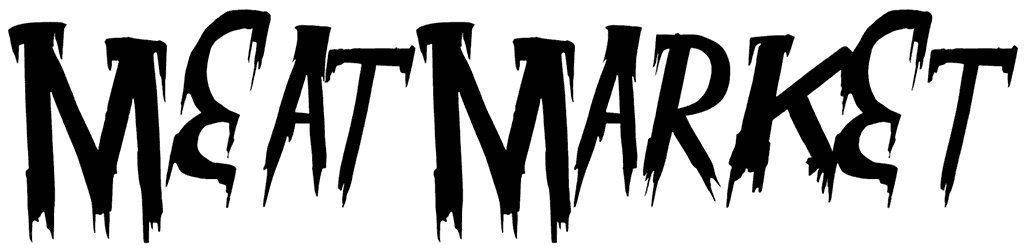
MeatMarket Font
Some fonts have a less-seen style that is useful for exceptional cases like MeatMarket. This dripping font has a horror theme that seems entertaining to particular viewers.
You may use the MeatMarket font for various issues such as video games, movie titles, and posters; however, it does not support lowercase letters and symbols. This horror font’s letters have sharp edges, and it seems that their color is leaking. Thus, this feature of the MeatMarket makes it memorable to your audience.